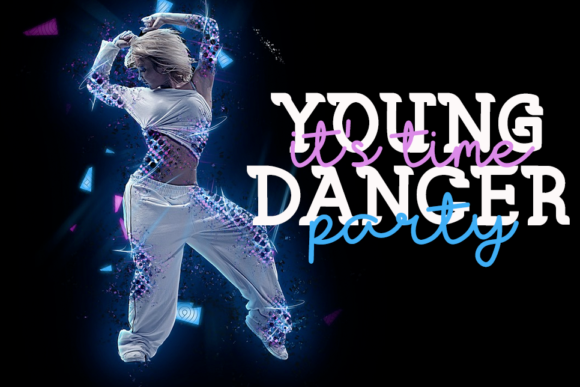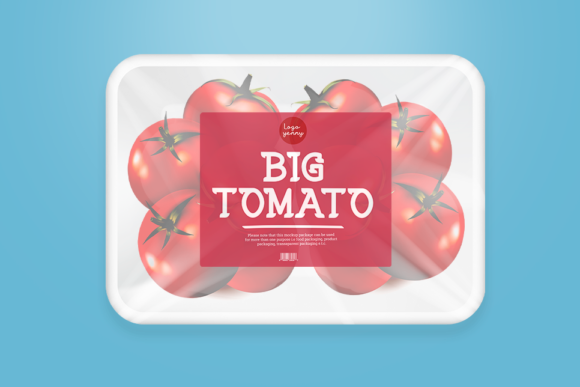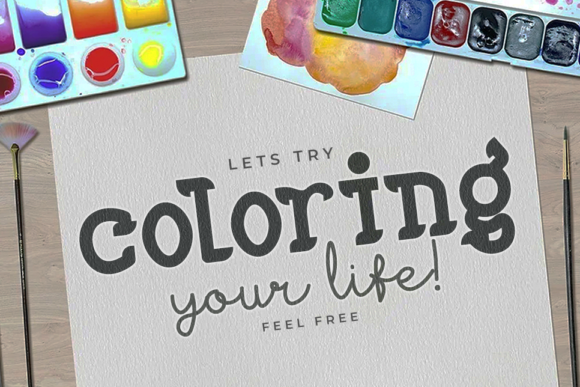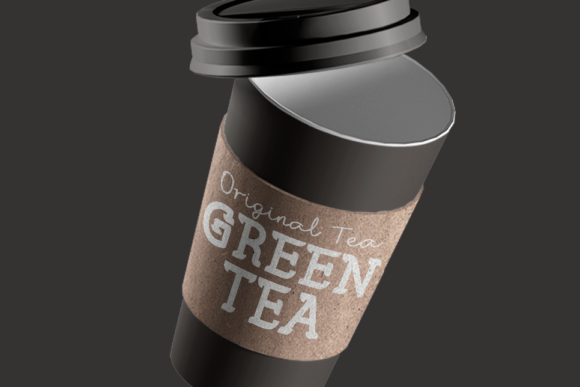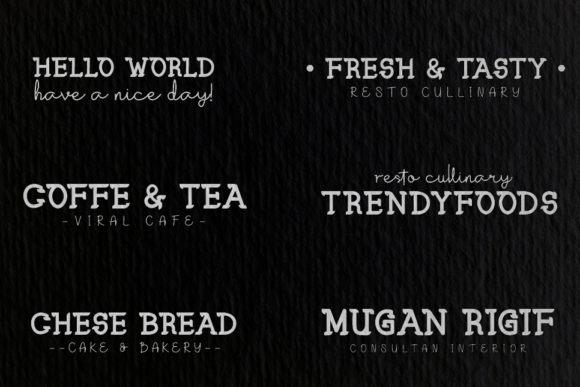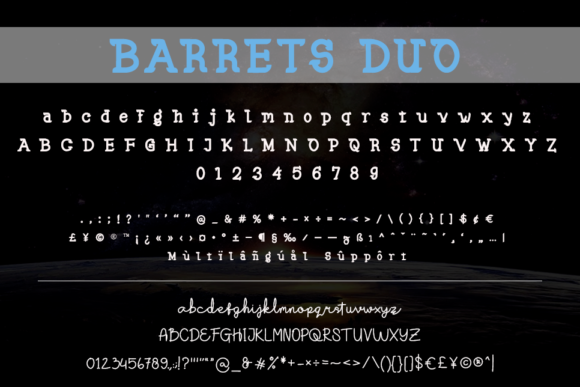
Introduction to Slab Barrets Font
Do you remember the moment when you stumbled upon the perfect font that made your design project shine? For many designers, this moment is like finding a needle in a haystack – a rare and exciting discovery that elevates their creative project to new heights. And that’s exactly what Slab Barrets Font can do for you. This incredible duo font combines the elegance of script characters with the rugged charm of a slab serif style, resulting in a unique and modern feel that’s hard to resist.
As a valuable resource for designers, Slab Barrets Font is a game-changer for those looking to create high-quality designs with a personal touch. Whether you’re working on branding, headings, wedding designs, invitations, signatures, logos, labels, or anything in between, this font is sure to bring a fresh and creative twist to your work.
Key Features of Slab Barrets Font
- High-quality font with a unique Slab Barrets style, perfect for creative projects that require a touch of elegance.
- Unique characteristics include its bold, slab-serif style and classic feel, making it an excellent choice for designers seeking a timeless look.
Honest Review: Slab Barrets Font
I recently had the chance to work with Slab Barrets Font for a creative project and I must say it’s been a game-changer. The font is a high-quality design resource that can elevate any project with its sleek and modern aesthetic. One of the standout features of Slab Barrets Font is its transparent background, which makes it perfect for overlaying on top of images or other design elements.
- ✨ Sleek and modern aesthetic that’s perfect for contemporary designs
- ✨ High-quality design resource that’s suitable for professional projects
- ✨ Transparent background makes it easy to overlay on top of images
- ⚠️ Limited character set, which may not be suitable for projects that require a wide range of characters
Overall, I’m impressed with Slab Barrets Font and would highly recommend it to designers looking for a high-quality, modern font. With its sleek aesthetic and transparent background, it’s a great option for any creative project.
For optimal results, use the Slab Barrets Font in combination with a high-contrast background to make the text stand out. You can also experiment with different font sizes and styles to add visual interest to your design.
The Slab Barrets Font is ideal for use in a variety of creative projects, including logos, business cards, and marketing materials. Its bold, modern look makes it perfect for designs that require a professional and eye-catching appearance.